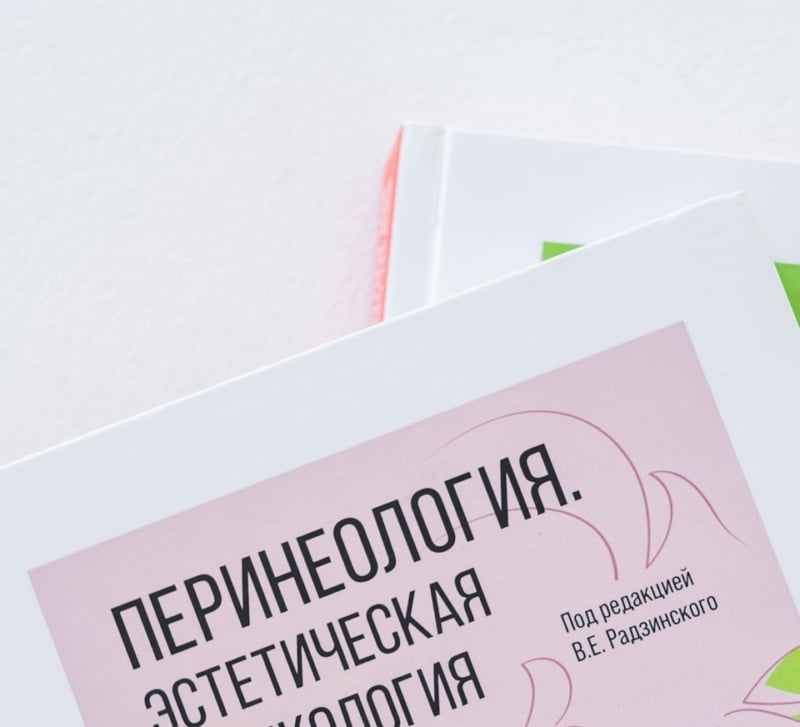
Expert Tips for Selecting Fonts for Custom Packaging
Fonts on your packaging do much more than spell out your brand or product name. They capture the customer’s attention towards your brand before they even read the words. Imagine a strong, clear type on a small everyday product: it conveys a premium, eco-friendly, playful, or professional image. On the other hand, picture a weak or messy typography on a high-end product: it can make even a good product look cheap or confusing.
So, the selection of the right font is essential to make your product stand out among others. Here, we have come up with expert tips for selecting fonts for custom packaging and explain, in simple steps, how to customize fonts so they truly fit your brand.
1. Start With Your Brand Personality
Before you look at any font, pause for a moment and ask: What should my packaging feel like? Modern and clean? Warm and handmade? Luxurious and bold? Animated or funky?
When you are choosing fonts for branding, think of them like clothing for your product. A luxury skincare line might use a thin, elegant serif. A fun snack brand might use a rounded, friendly sans serif. A tech brand often leans toward sharp, geometric fonts.
Write down three words that describe your brand identity, such as “minimal,” “playful,” or “organic.” Use these words to filter out fonts that do not match. This simple step keeps you focused and saves you from getting lost in endless font options.
2. Connect Fonts to Your Packaging Format
Your font choice should also work well with the type of packaging you use. For example, if you sell candles or cosmetics in custom made boxes, you probably have limited space for text. That means you should choose fonts that stay easy to read even at small sizes and on curved or folded surfaces.
If your product comes in pouches, bottles, or labels, think about where the eyes will go first. The product name should be bold and easy to read from a distance. Whereas details like ingredients can be smaller but still clear. The best fonts for packaging are the ones that work across all these formats without losing readability.
3. Make Readability Your Top Priority
No matter how stylish a font you have used, if people can not read it at first glance, you have probably lost a customer. This is where the average font size matters. On most packaging, the product name sits somewhere between 18–36 pt (or equivalent in your design software), while supporting text is smaller.
Instead of focusing only on exact point sizes, print a test sample at real size and place it at arm’s length. If you have to squint, your font is too thin, too decorative, or too small. For long text like instructions or ingredients, choose simple, clean fonts with enough spacing between letters and lines so the words do not feel cramped.
Details like special ingredients or allergen-free claims are basically the things that make your product stand out, so they should be bold, clear, and easy to spot, usually somewhere in the 18–36 pt range. For instance, if someone is searching for a gluten-free option they should not have to hunt for that info. It should jump out at them right away.
4. Use “Expert” Font Combinations, Not Random Mixes
Many brands fall into the trap of mixing too many styles. A better approach is to use one or two expert fonts that provide all the important details clearly. Often, designers pair a strong display font for the logo or product name with a clean sans serif for all body text.
If you often work on packaging, you might benefit from investing in the best font pack for designers that includes multiple weights (light, regular, bold) and versions (serif, sans serif) that work well together. This gives you flexibility while staying consistent across flavors, scents, or product lines.
Good fonts for package design feel like they belong to the same family, even if they are not literally from the same font set.
5. How to Customize Fonts For Your Packaging?
Once you have chosen the right fonts for your packaging, the next step is making them feel truly your own. That is where customization comes in. Here are practical ways to do it in tools like Adobe Illustrator, Figma, Canva, or similar software (though the exact steps may vary):
- Adjust weight and size. You can make headings bolder and slightly larger than the rest of the text to create hierarchy. If your typeface has multiple weights, try using medium or semi-bold instead of jumping straight from regular to extra bold.
- Tweak letter spacing (tracking) and line spacing (leading). Slightly increasing spacing can make smaller text easier to read on labels and boxes.
- Be careful not to overdo it, or the text will look disconnected.
- You can also customize shapes by converting text to outlines (in advanced design software) and gently adjusting individual letters. This is useful if you want a special curve on one character for your logo. Just remember: do this only for keywords like your brand name, not for long paragraphs.
Final Words
Thoughtful font choices are one of the most powerful tools you have in packaging design. When you understand your brand, choose readable and flexible typefaces, and know how to customize fonts with size, spacing, and style. By doing that, your packaging will look professional, consistent, and memorable—whether it is for a large product line or a few carefully crafted items.